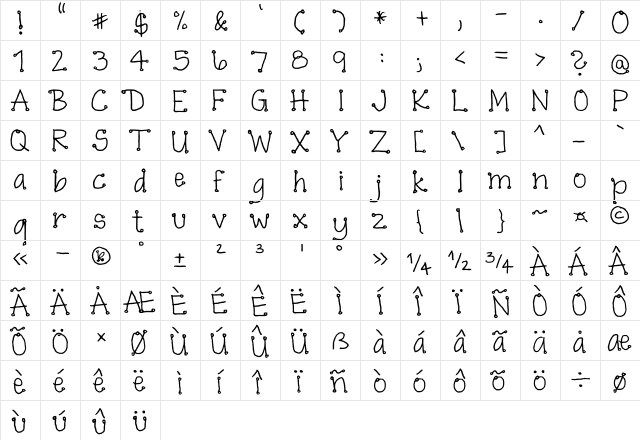
FG Kajsa Straight Regular
| Foundry | Font Garden |
| Designer | Font Garden |
Design Context for FG Kajsa Straight Typeface
FG Kajsa Straight takes a measured approach to typography — its balanced proportions and neutral character make it a reliable workhorse for both digital and print work.